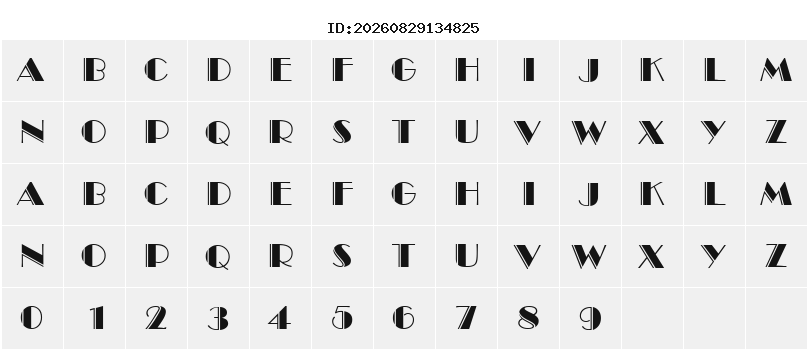
• Font Name: Theatre
About Theatre.ttf
Theatre.ttf is a modern, elegant sans-serif font designed for ultimate readability and visual harmony. Perfect for branding, headlines, web design, and print materials.